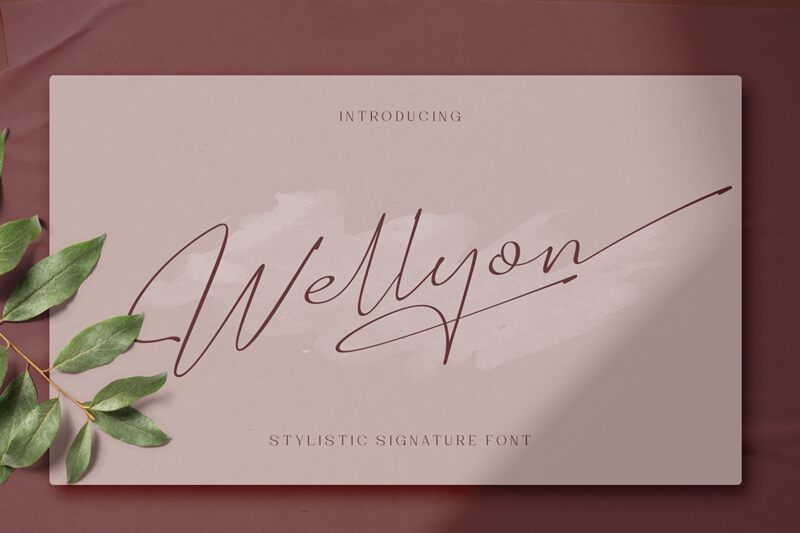
Wellyon Regular
Wellyon, a captivating handwritten font created by Alit Design, exudes an elegant, signature-like flair. This light-weight typeface boasts fluid strokes and harmonious curves, seamlessly blending modern sophistication with a touch of timeless charm. Its organic, personalized aesthetic evokes a sense of authenticity, making it a compelling choice for projects seeking to convey a heartfelt, personal touch.
Wellyon's versatility shines through its ability to seamlessly integrate into various design contexts. Its casual yet refined appearance lends itself beautifully to branding initiatives, product packaging, wedding invitations, and editorial layouts, where it can create an inviting, handcrafted ambiance. Wellyon's distinctive character makes it an ideal selection for designers seeking to infuse their work with a distinctive, artisanal essence.